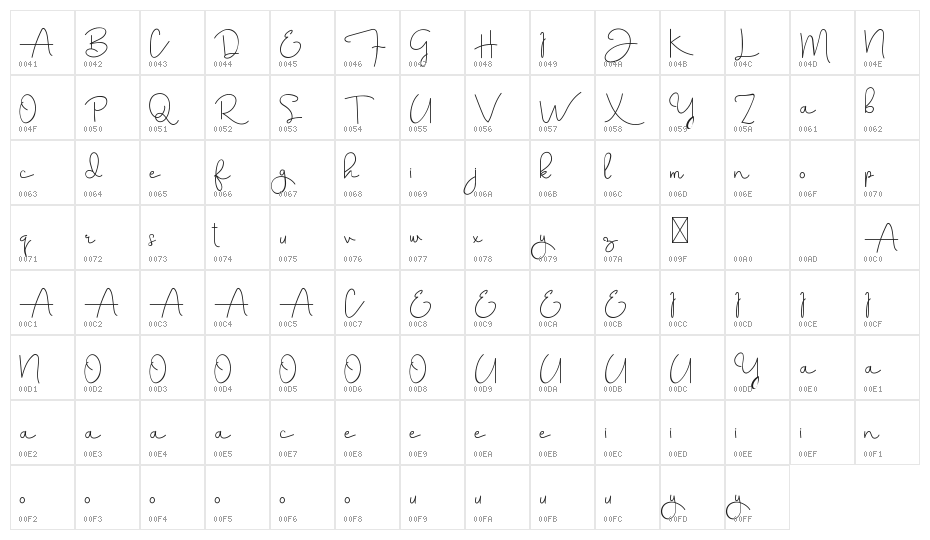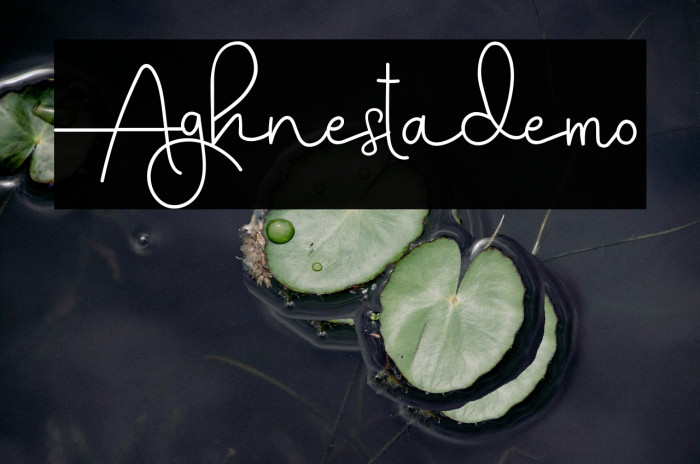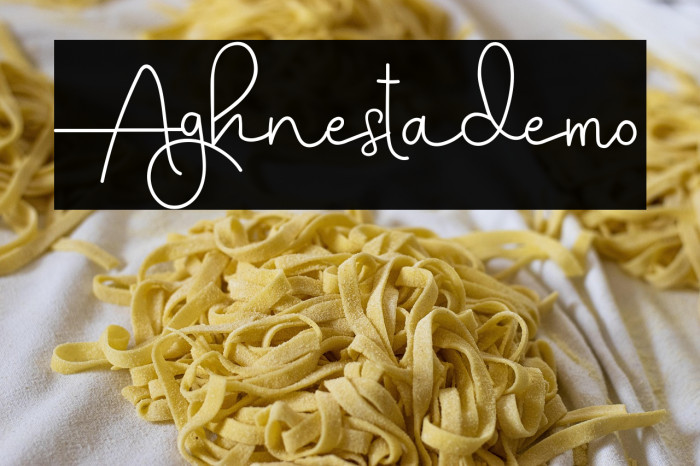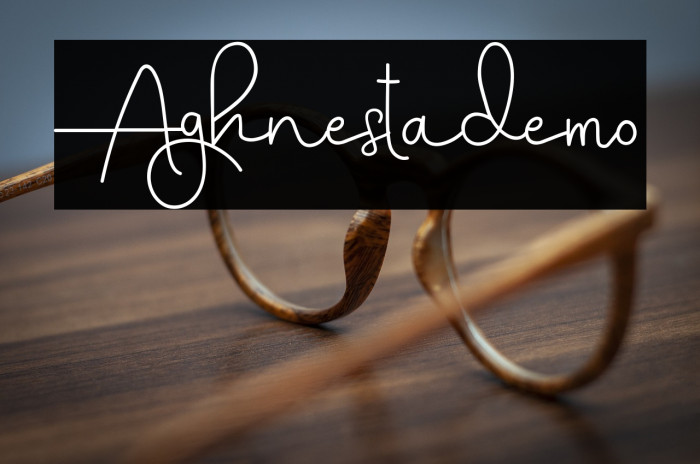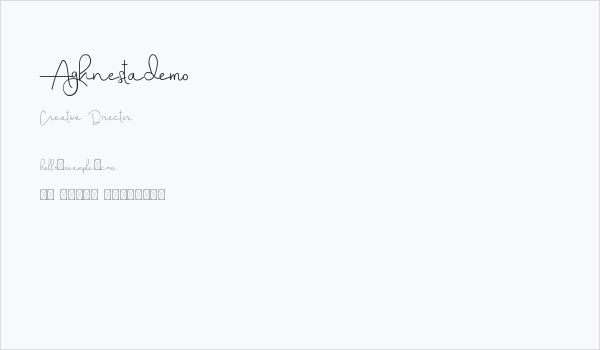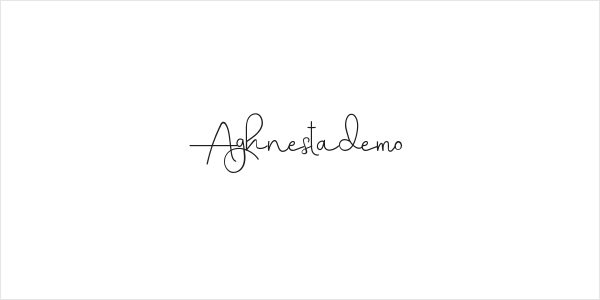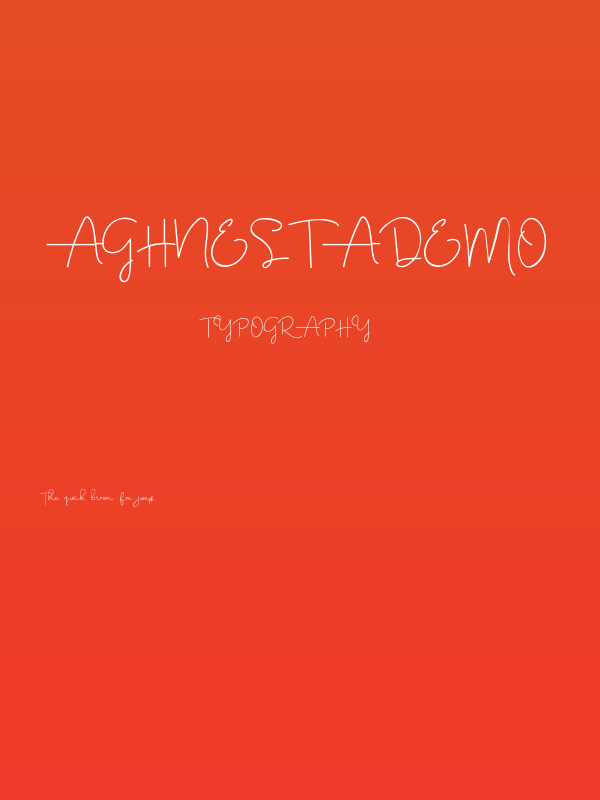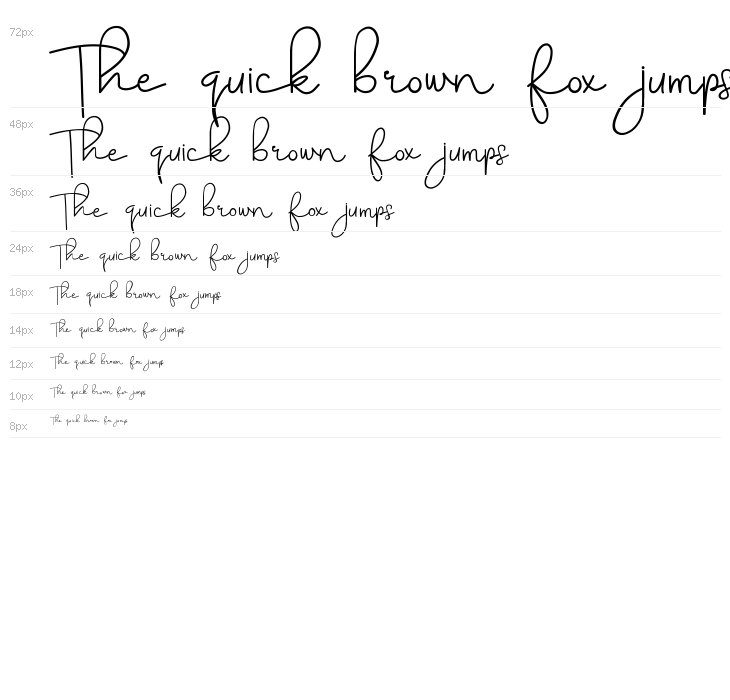
Aghnestademo Font
Aghnestademo Description
This elegant script font features a flowing, cursive style with delicate, interconnected letters. The uppercase characters are tall and slender, with graceful loops and swirls that add a touch of sophistication. The lowercase letters maintain a consistent flow, with some characters extending below the baseline, creating a dynamic and lively appearance. The font's overall design is reminiscent of handwritten calligraphy, offering a personal and artistic touch. Its thin strokes and intricate details make it suitable for projects that require a refined and stylish aesthetic.
| Overall Style | Elegant, Artistic |
| Proposed Projects | Ideal for wedding invitations, greeting cards, elegant branding, and personal stationery. |